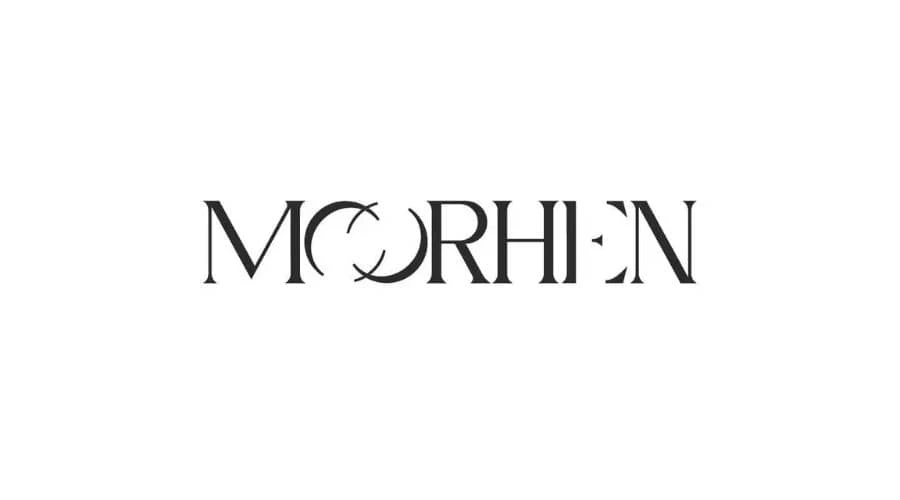
Designed by NihStudio, Moorhen font is a contemporary display typeface. The typeface has a refined and sophisticated look to it. What you receive when you buy the fonts in different formats: “OTF, TTF, and WOFF.” Uppercase letters, numerals, and punctuation are all included in this font. It is also available in other languages. Moorhen font free download is available here.
To design a website, use this typeface. Use it for titles, headers, and even sub-headings! Use this typeface to improve the look of your thumbnail if you are a YouTuber. Pamphlets, cards, websites, presentations, blogs, logos, publications, and branding may all benefit from the versatility of Moorhen. You can download the Moorhen font for free right now.
Before we go any further, let’s have a look at the font’s style and how it will appear in your tasks.